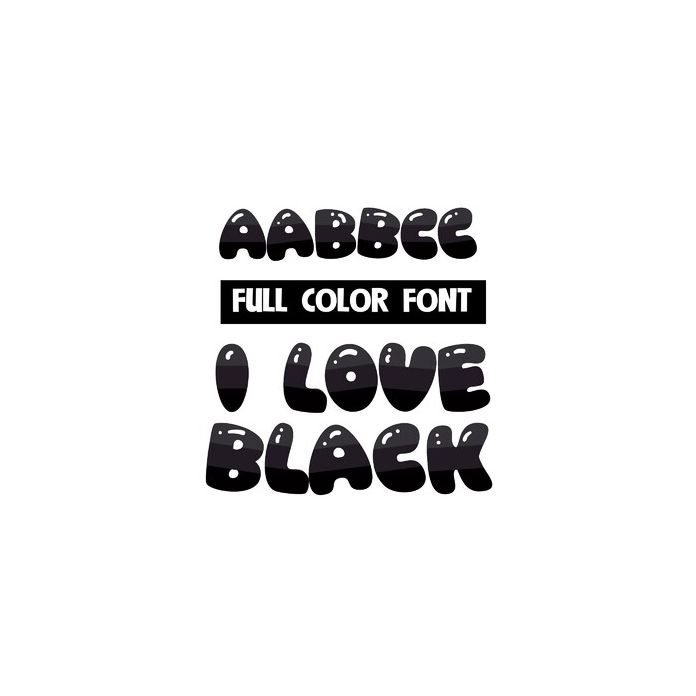
This full-color font features 3 shades of blacks and highlights throughout. This font works best for titles, displays, posters and more. Please note color fonts will show as black in non compatible programs. This font type is compatible with Silhouette Studio.